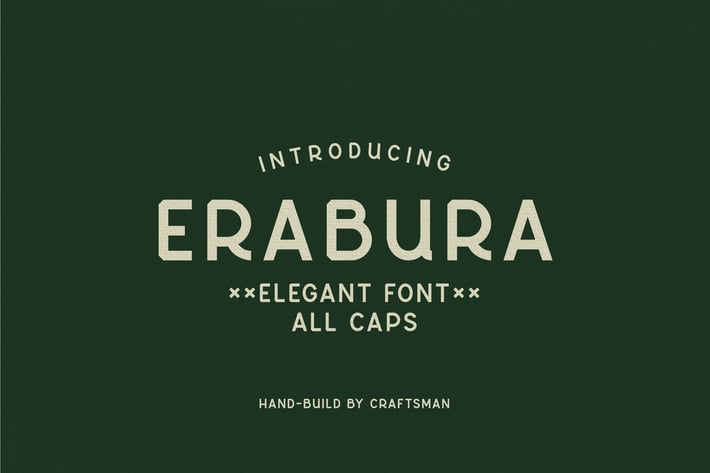
Erabura Elegant - Logo Font
Erabura Elegant Font
Tacikworks presents the new Elegant Font hand-build by craftsman. These clean and elegant font will be good to use in your design. The font perfect for create brand logo, badges, clothing design, and much more